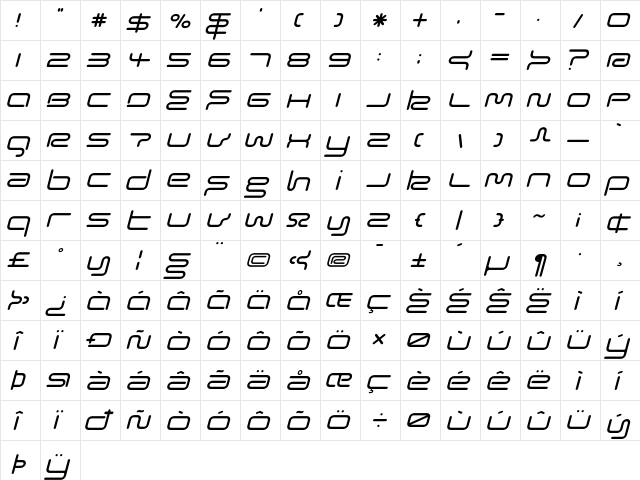
Euphoric RegularItalic
Design Context for Euphoric Typeface
Euphoric is a composed and adaptable typeface that performs quietly and consistently across a wide range of design contexts. Its italic angle brings a sense of urgency and motion to the letterforms.
Pro Tip: Try Euphoric for annotation and caption copy alongside an upright companion — the contrast in angle creates a dynamic but ordered typographic system.